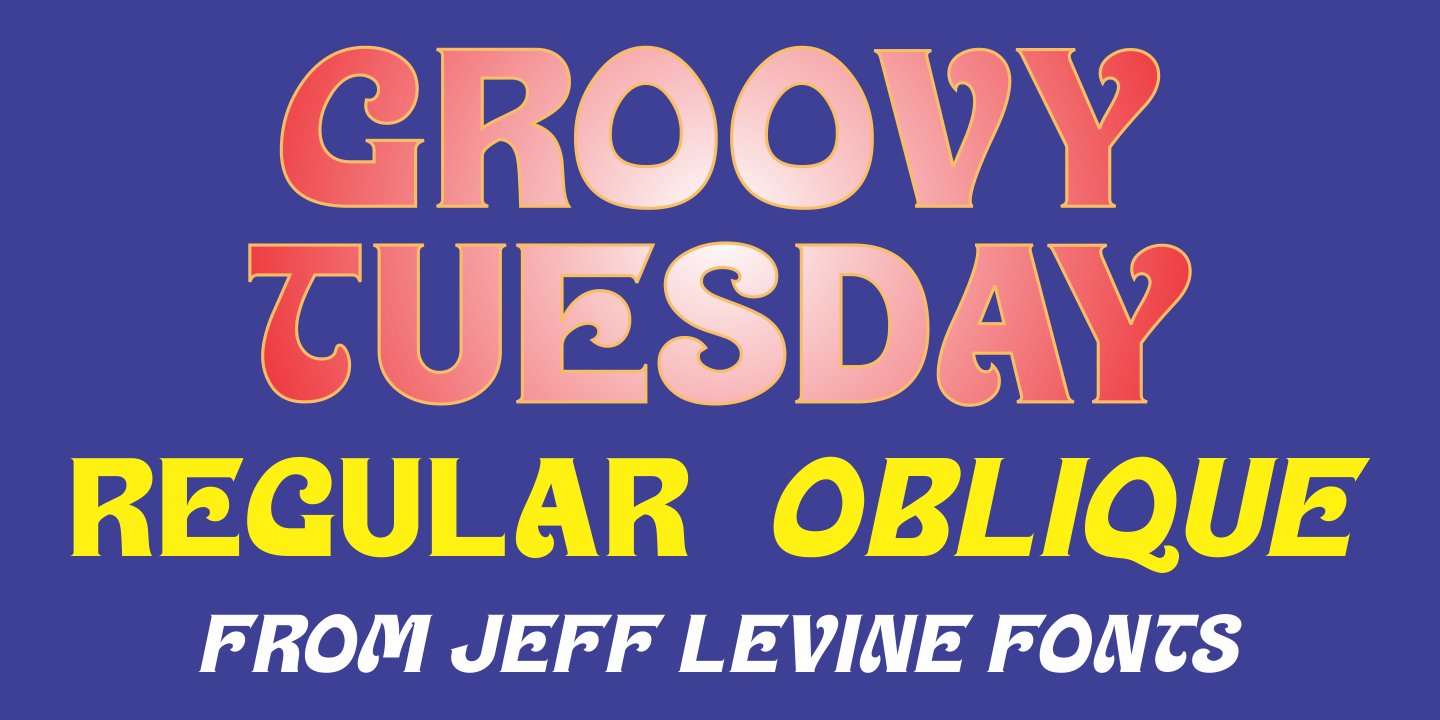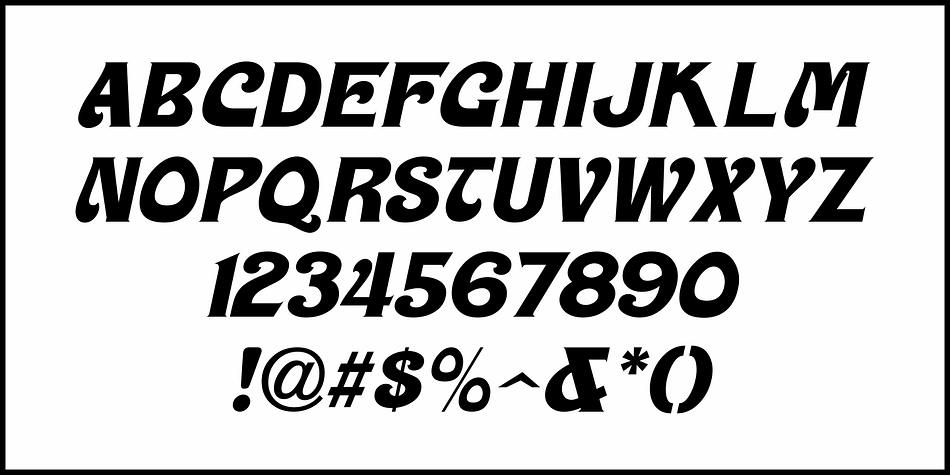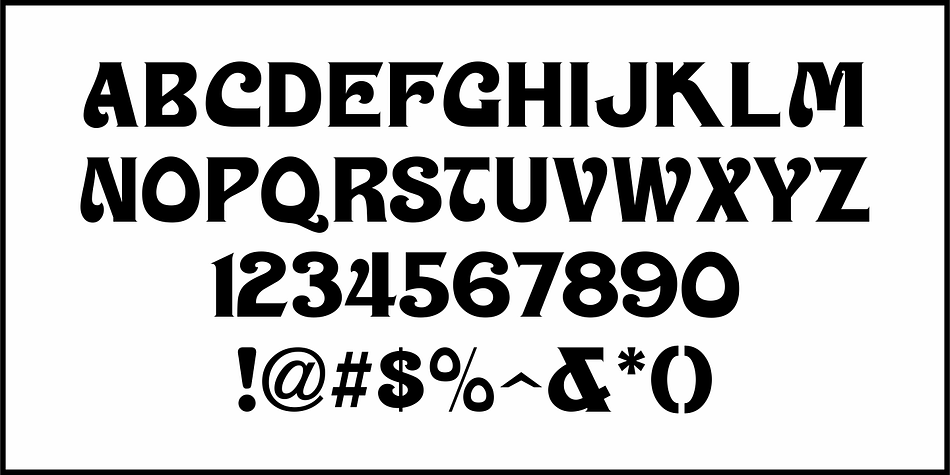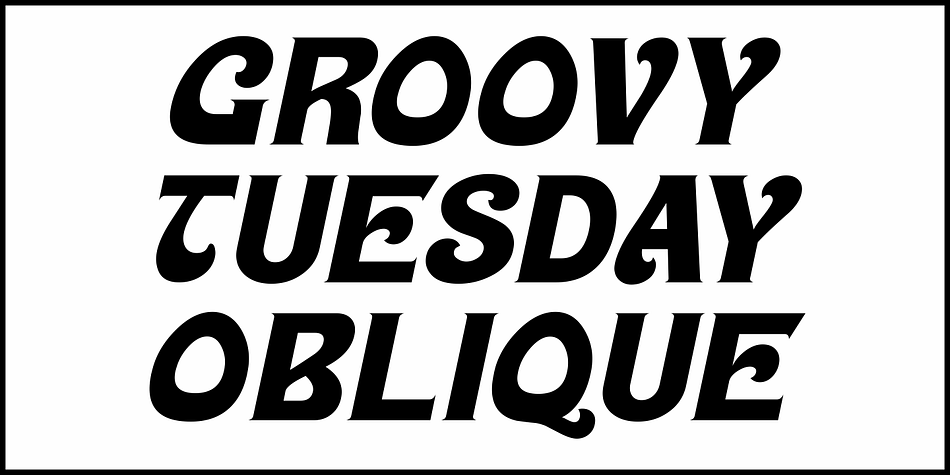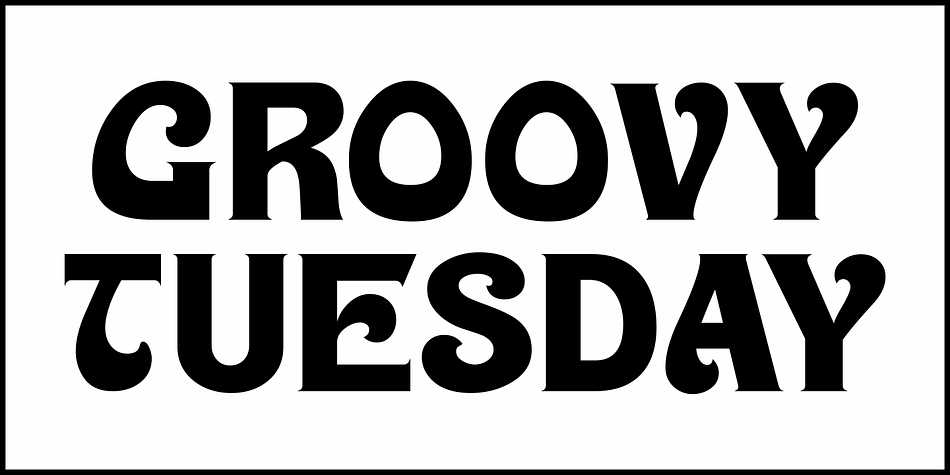
GROOVY TUESDAY JNL
Designed by Jeff Levine, Groovy Tuesday JNL is a display sans and retro font family. This typeface has two styles and was published by Jeff Levine Fonts.
Hand lettering from the 1965 movie poster for “The Loved One” – a classic 1960s spurred serif design with added curly-tailed terminals was the working model for Groovy Tuesday JNL – available in both regular and oblique versions.